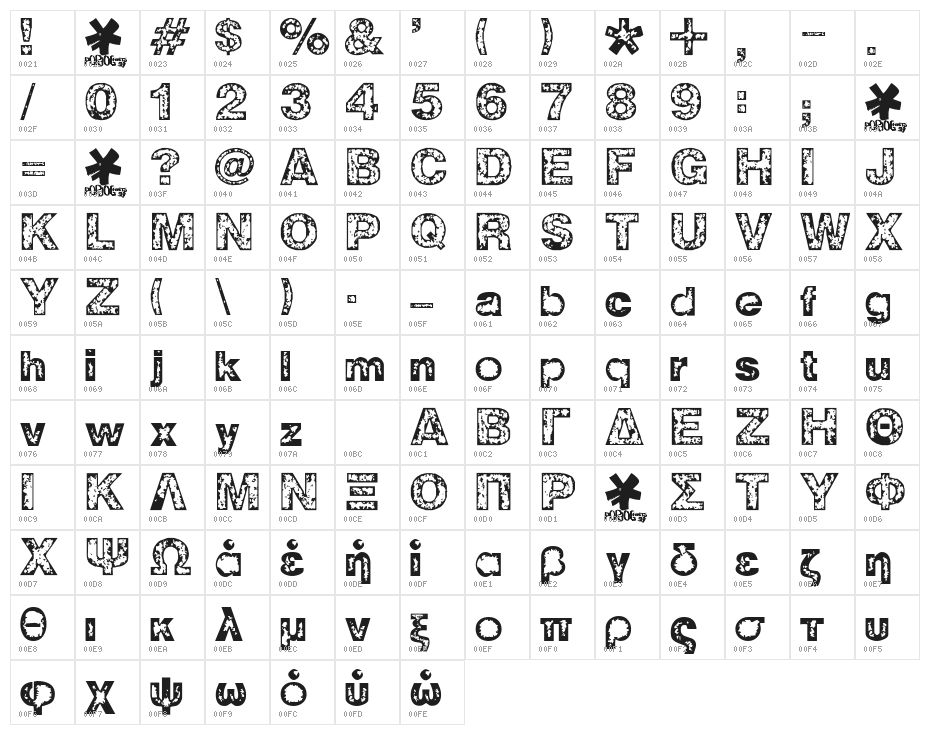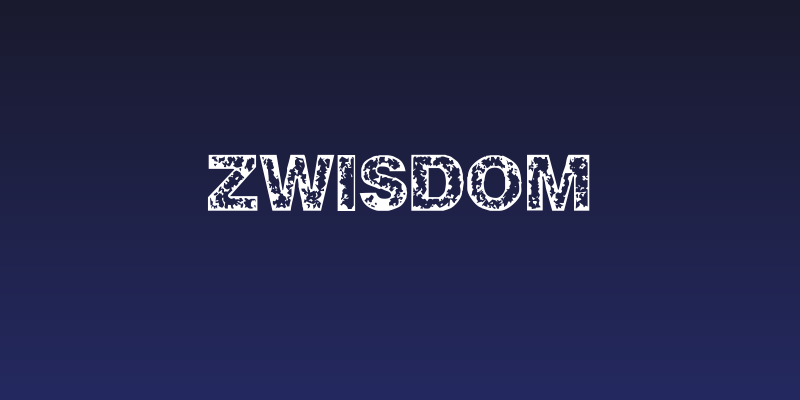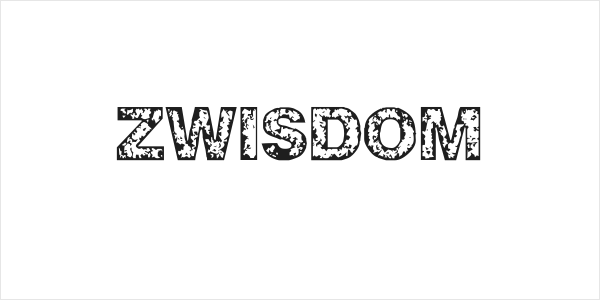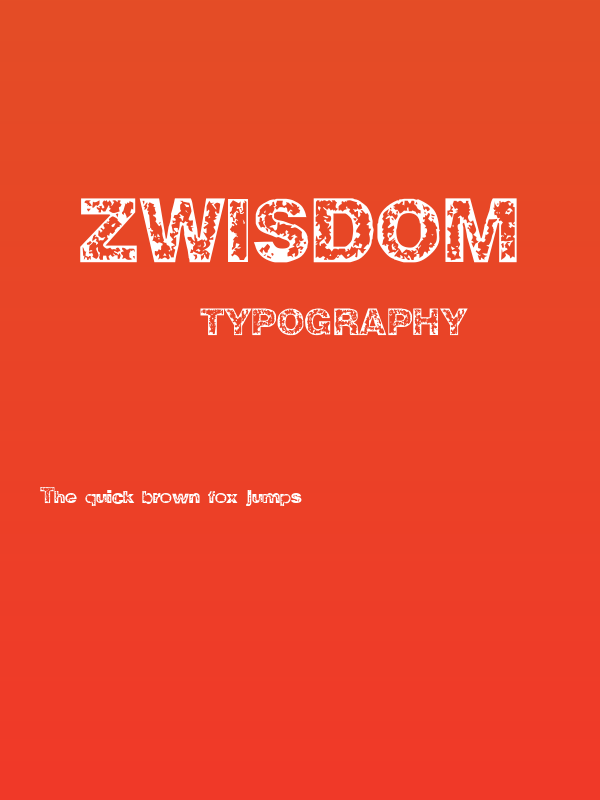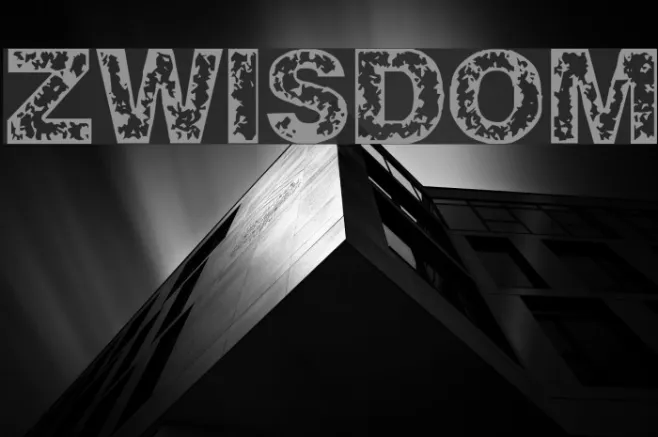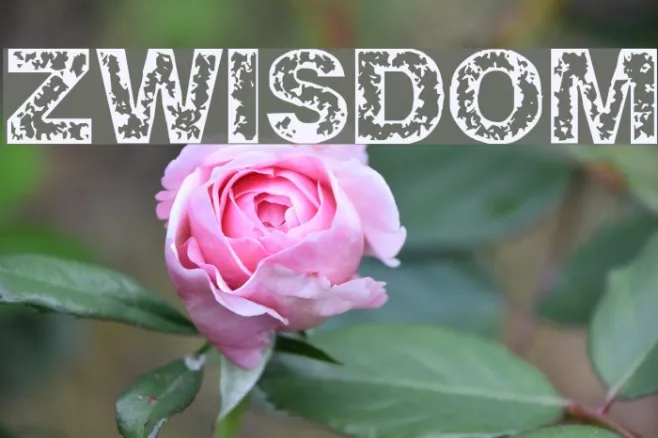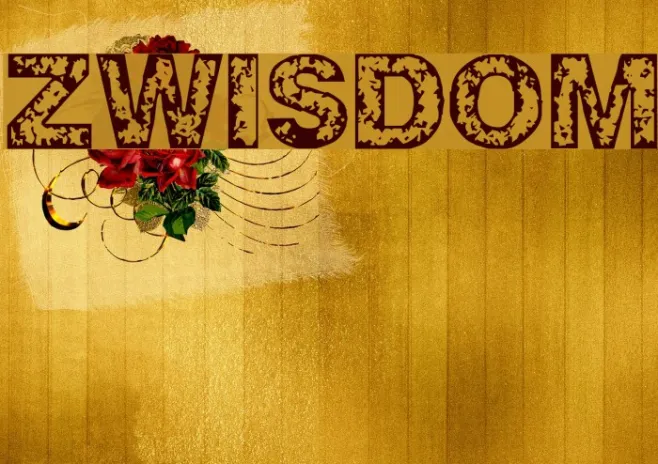
ZWISDOM Font
ZWISDOM Description
This font features a bold, decorative style with a distressed, grunge texture that gives it a unique and edgy appearance. The characters are filled with irregular, rough patterns that create a sense of movement and energy. The uppercase and lowercase letters maintain a consistent weight, contributing to a cohesive look across the alphabet. The numerals and special characters share the same textured design, ensuring uniformity throughout. This font's standout feature is its ability to convey a sense of ruggedness and creativity, making it ideal for projects that require a bold statement.
| Proposed Projects | Ideal for posters, album covers, branding for edgy products, and any design needing a bold, creative touch. |